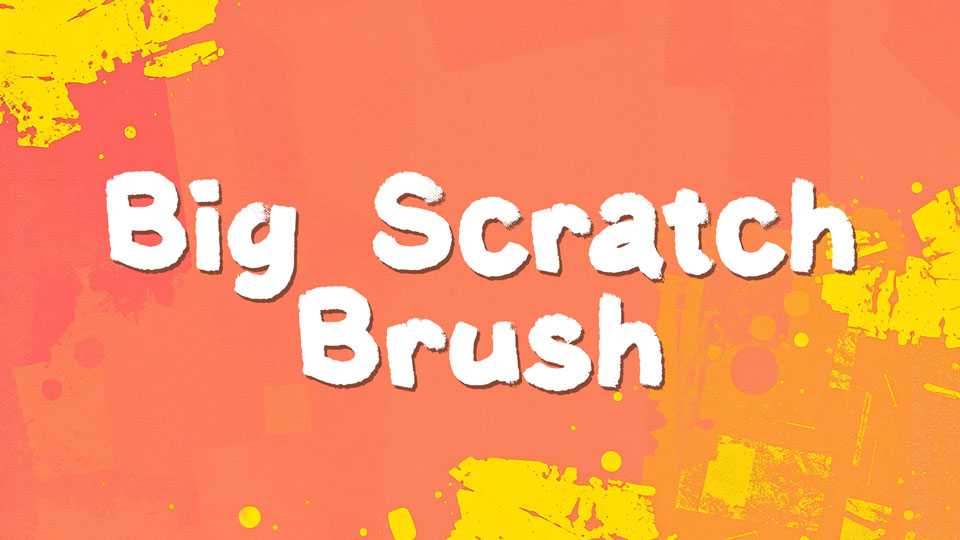
Download Big Scratch Brush font, a big, thick, naturally dry brush typeface. It has a really raw texture, and uses a lot of points/curves.
Designer: Out of Step Font Company